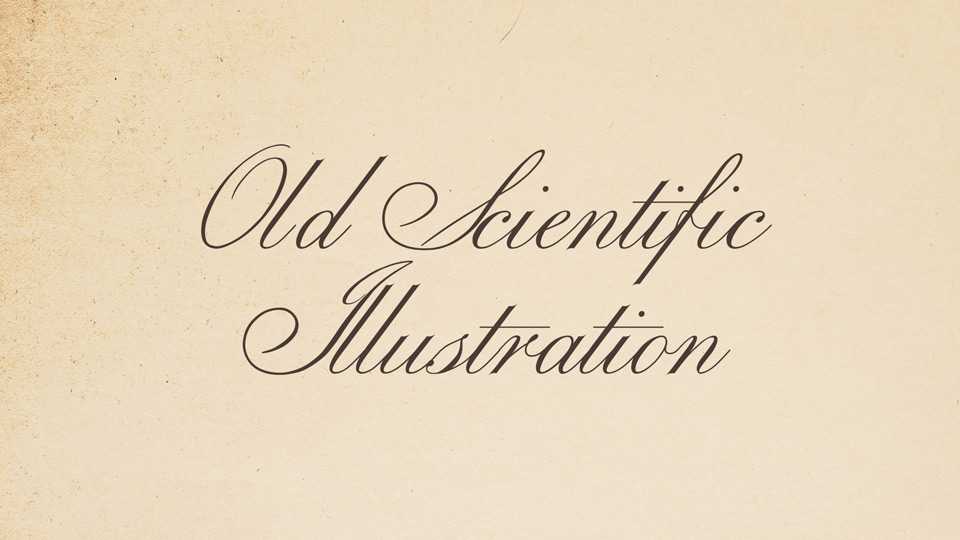
Download Old Scientific Illustration font, a decorative formal script italic typeface for general use and especially designed for compatibility with graphics programs. The font design is based on the engravings contained in the botanical series Flora Londinensis by William Curtis which was first published in 1777.